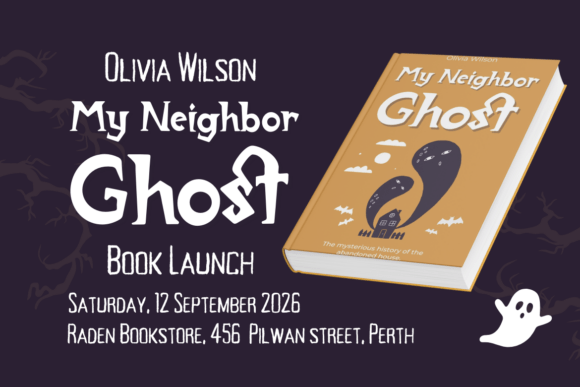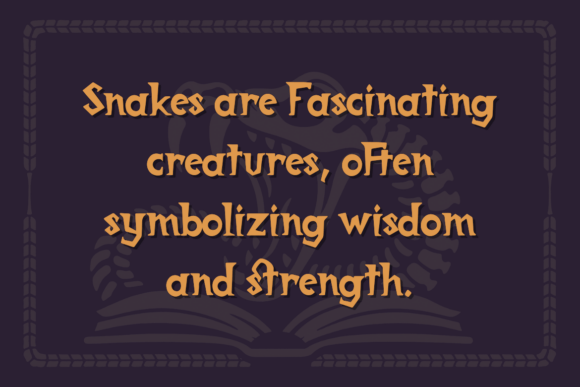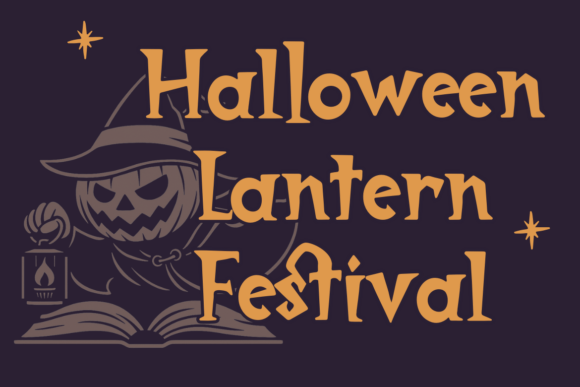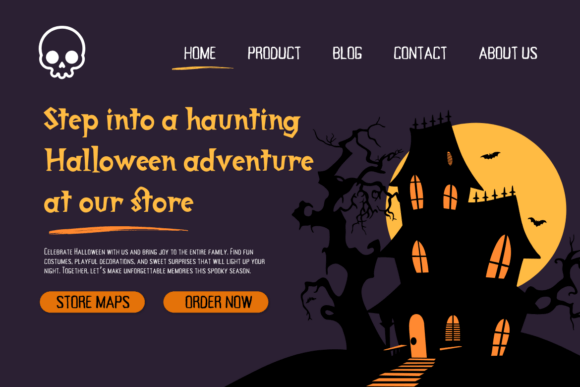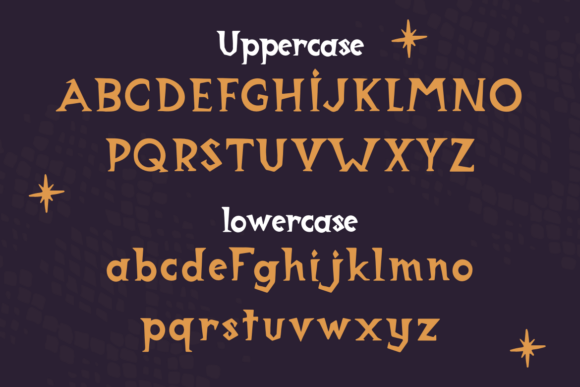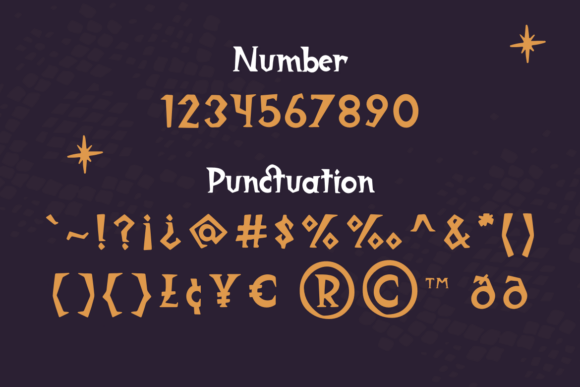
Introduction to Sinister Chapter Font
Unleash a dark and playful vibe with **Sinister Chapter – Halloween Font**.
Crafted with eerie curves and sharp edges, this display typeface captures the spirit of Halloween with a mix of mystery and fun Perfect for **spooky posters, party invitations, horror quotes, or seasonal branding**.